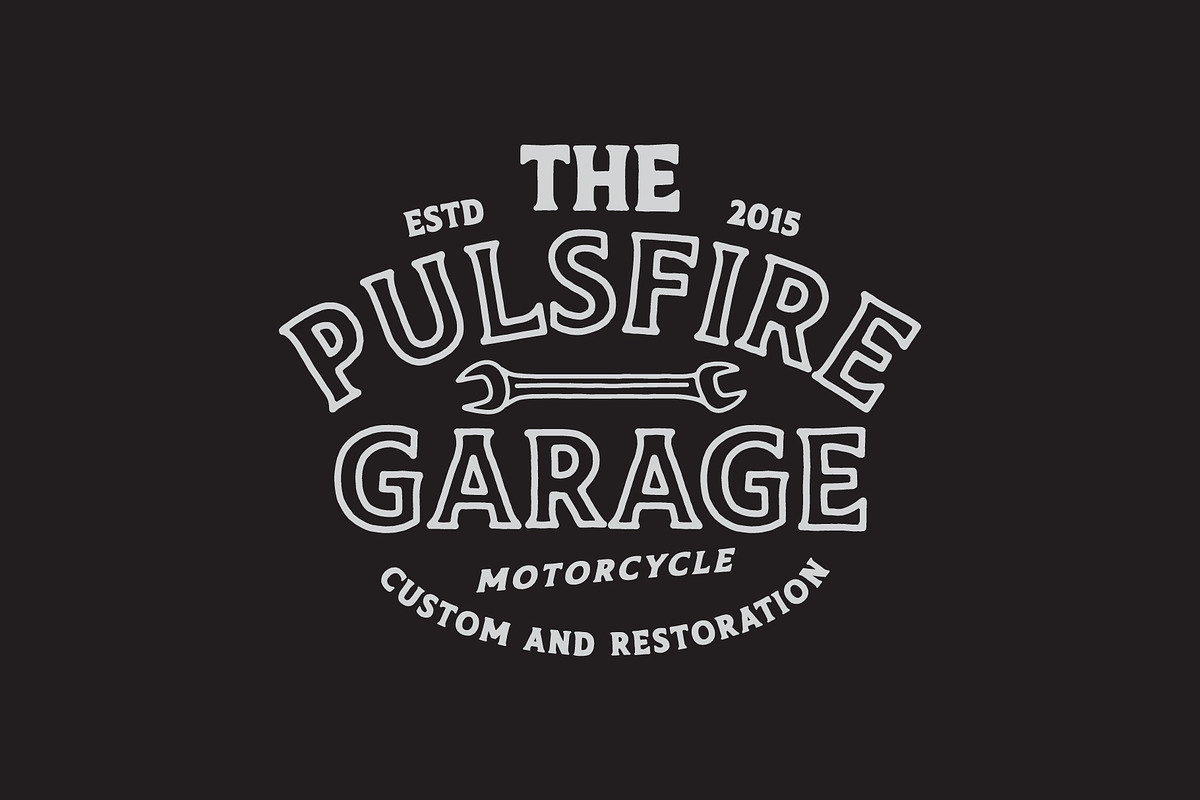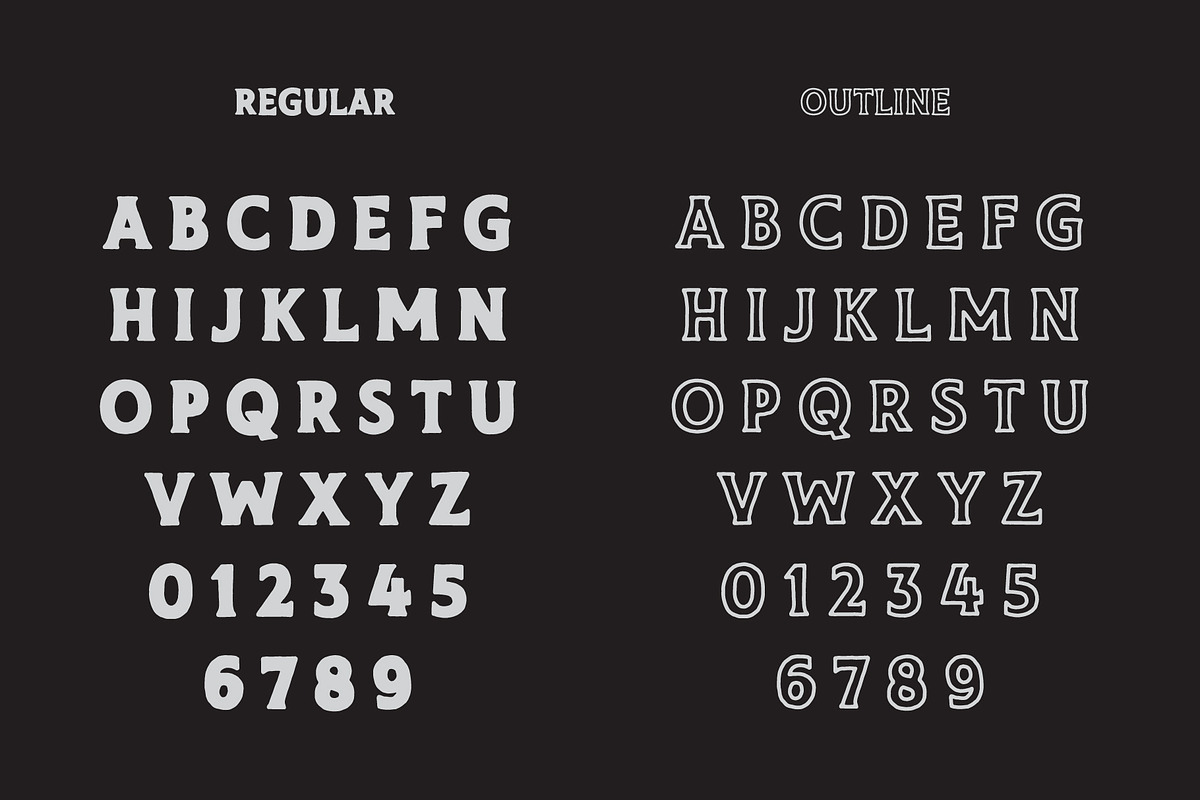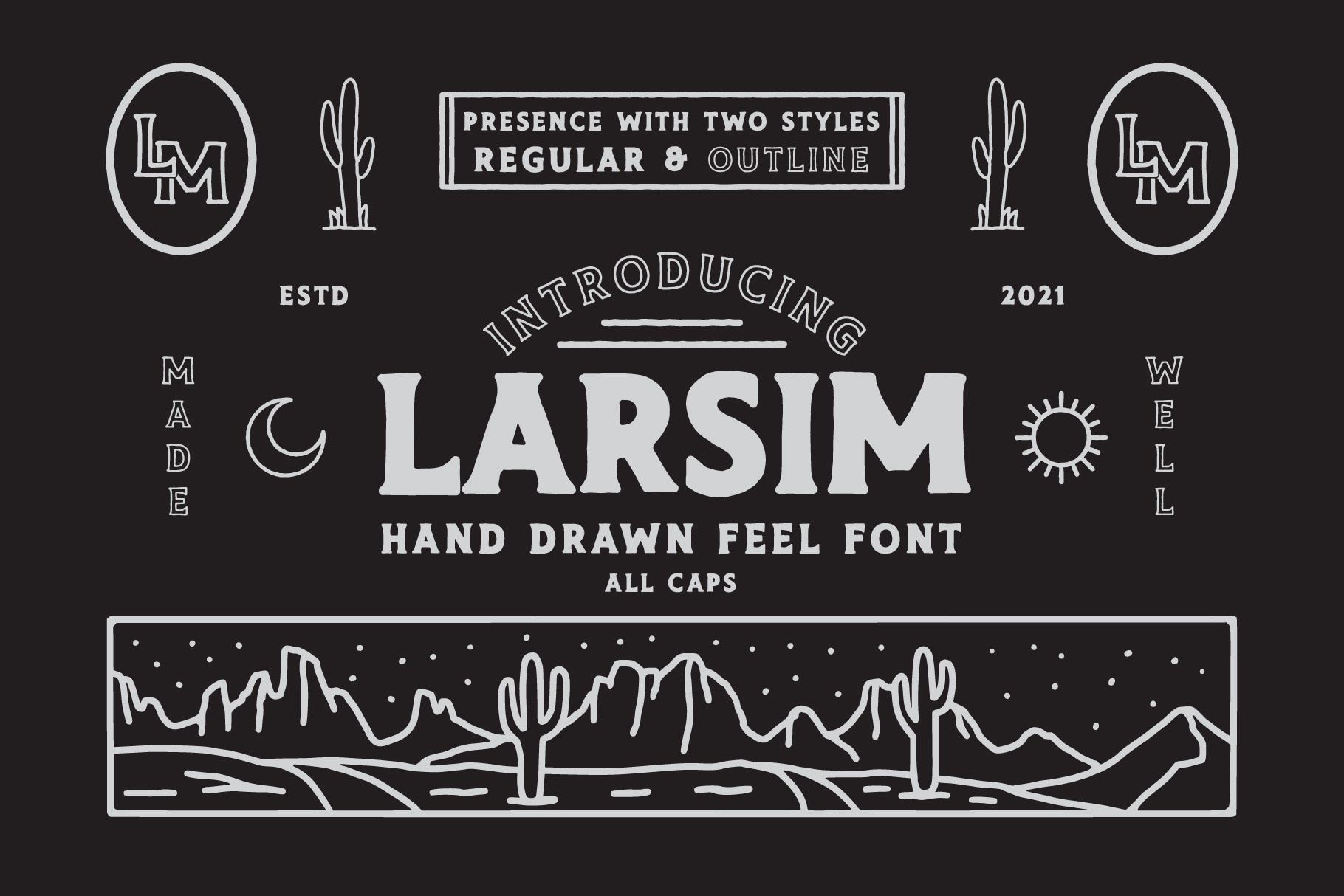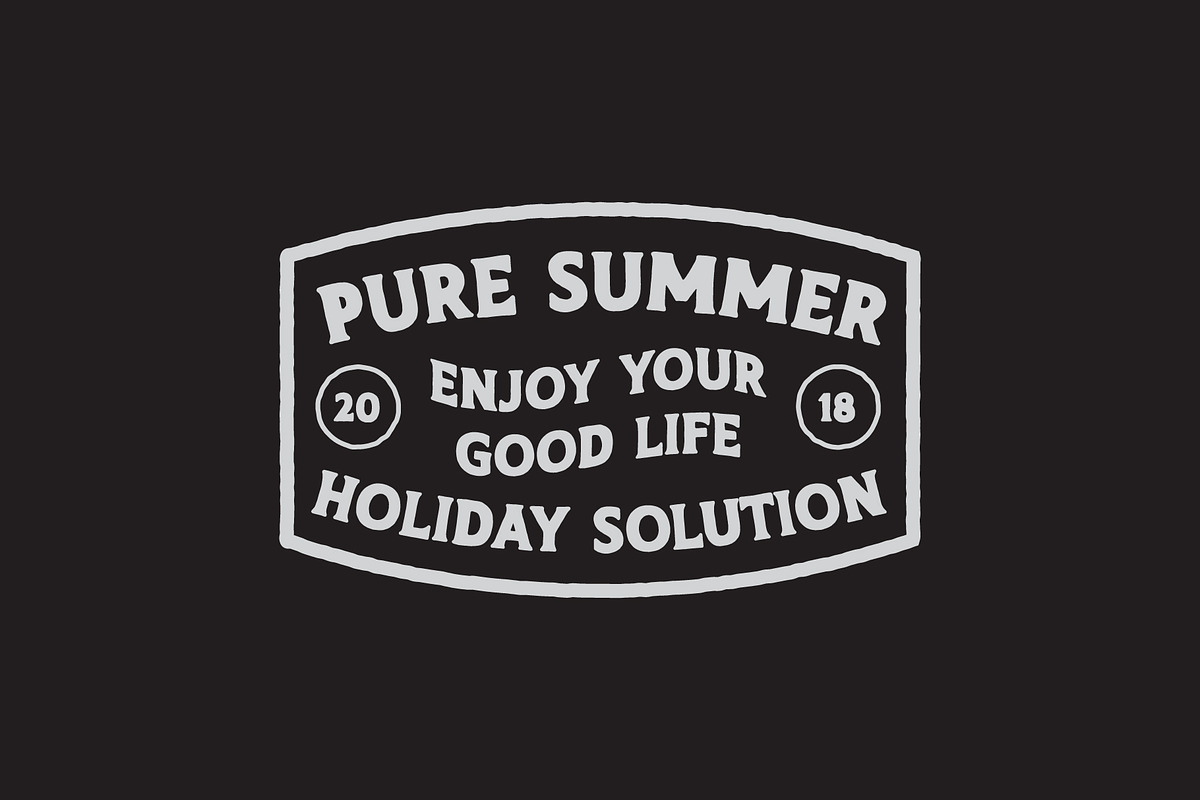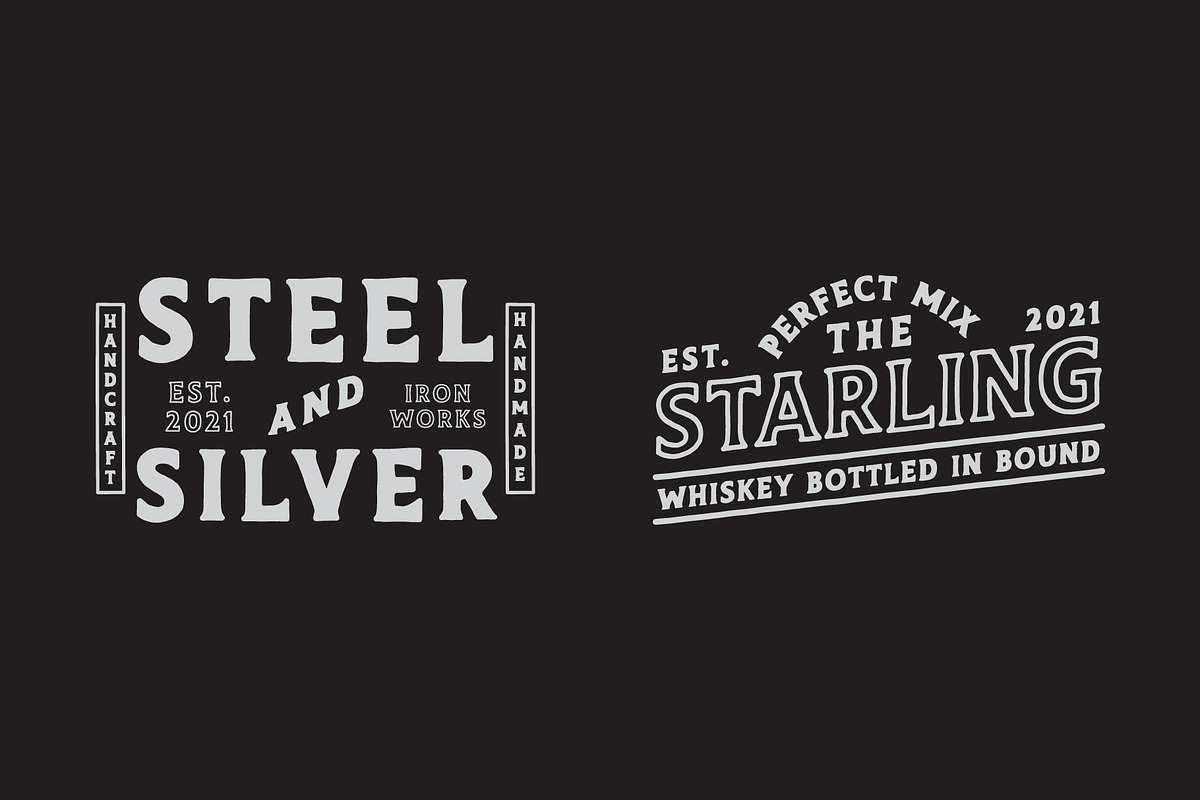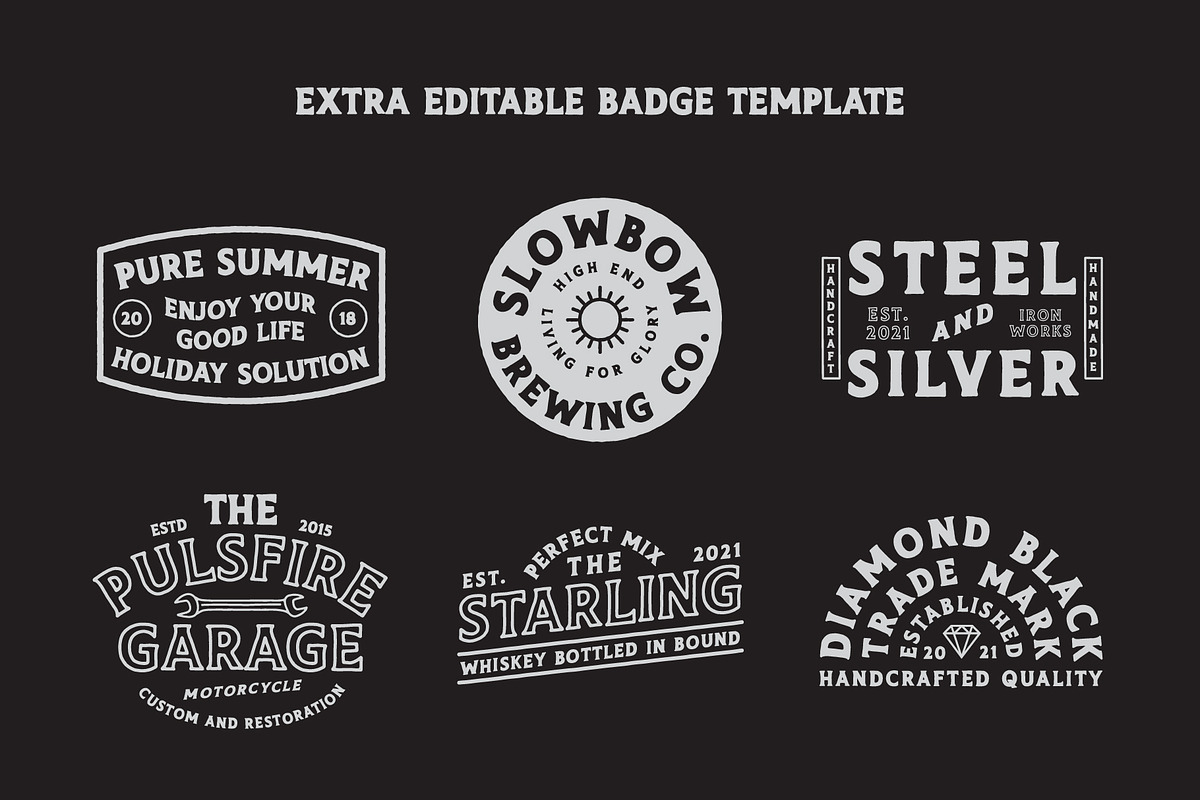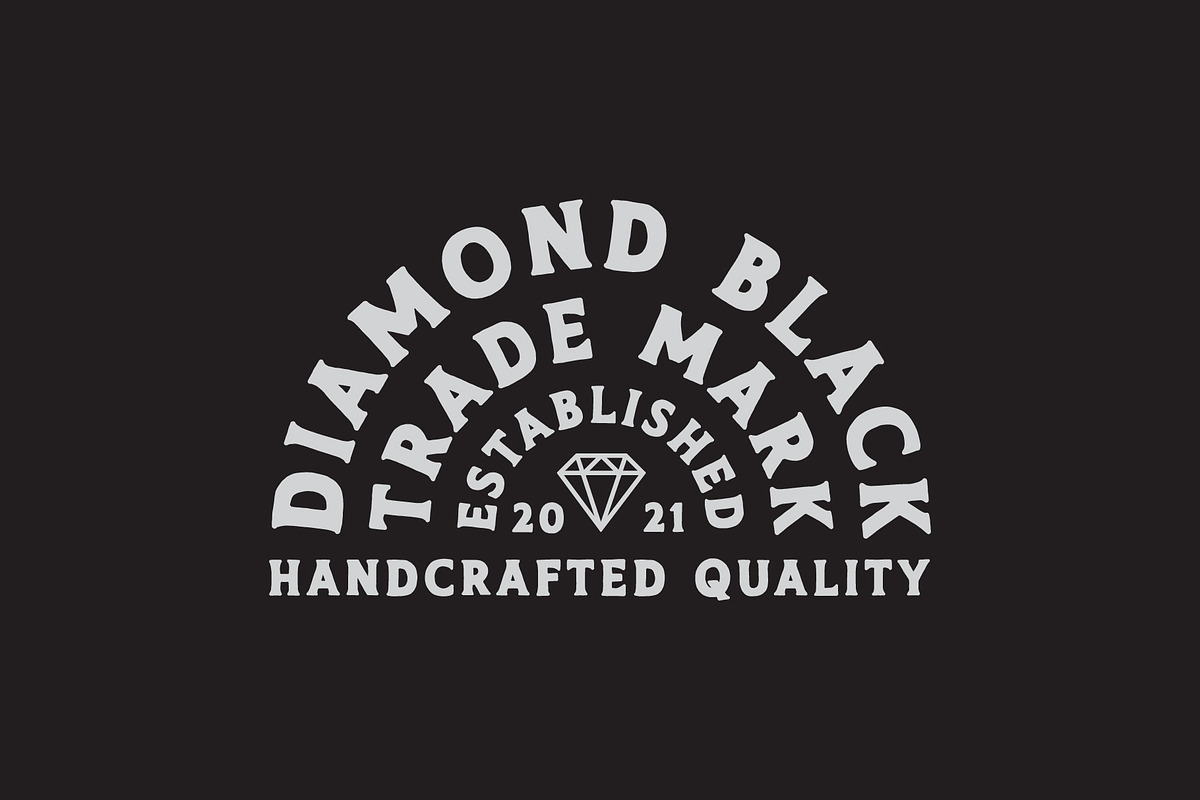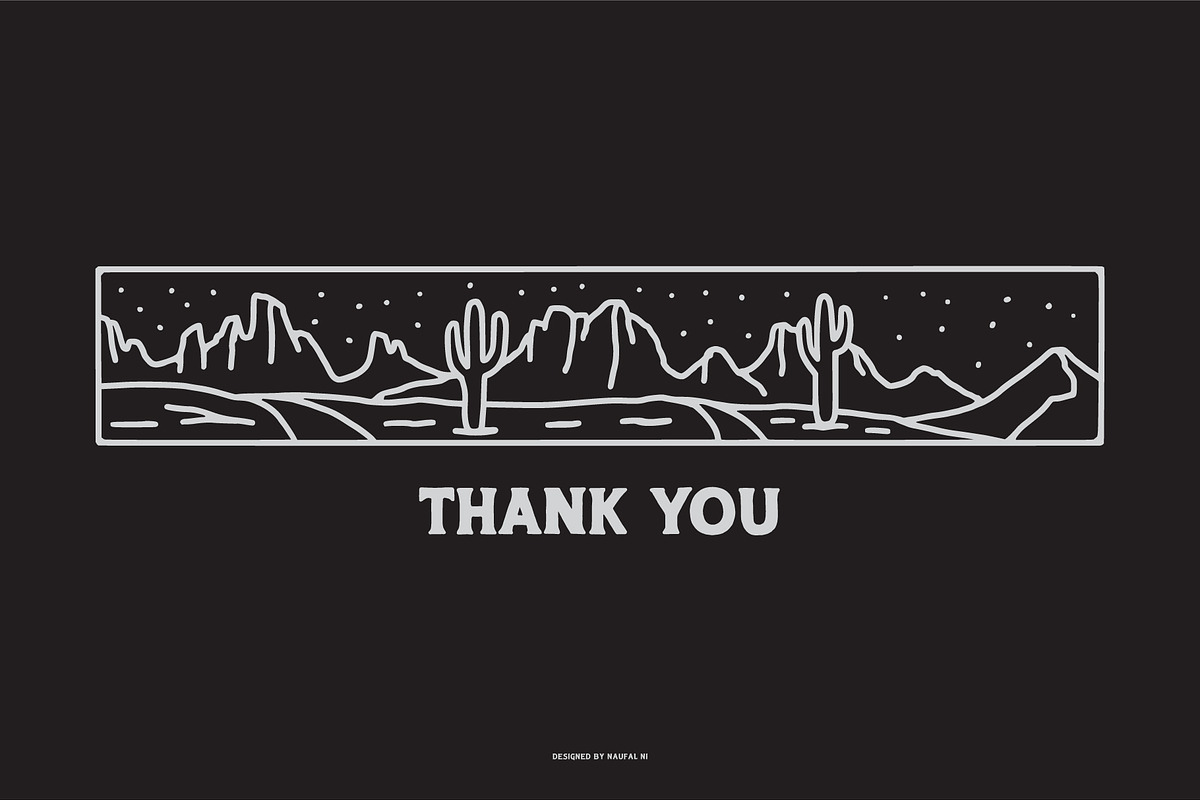
LARSIM Font + Extra
Introducing LARSIM
LARSIM is a thin serif font, and is inspired by vintage desert. This font is very suitable as a display font as well as a font for book cover, because it has a high readability.
LARSIM perfect for making logo designs, badges, packaging, posters, t-shirt designs and more. fonts give a handdrawn desert feel to your design. Hope you like this font!